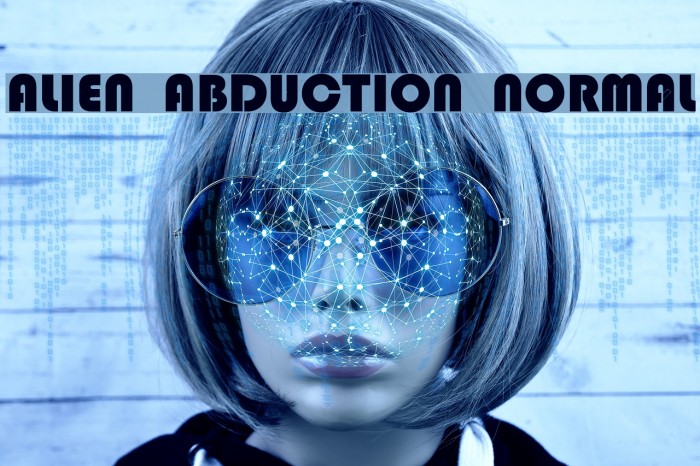
Alien Abduction Normal Font
This font features a bold and futuristic design with a distinct geometric style. The characters are constructed with thick, uniform strokes that create a strong visual impact. The letters have a rounded, almost circular appearance, with some characters featuring unique cutouts and angles that add a modern twist. The numbers and special characters maintain the same boldness and geometric consistency, making the font suitable for attention-grabbing designs. Its overall aesthetic is both playful and assertive, ideal for projects that require a standout typeface.
A bold, geometric font with a futuristic and playful design.
- Font: Alien Abduction Normal
by danny91194 - Weight: Normal
- Proposed Projects: Ideal for sci-fi themed posters, video game titles, branding for tech companies, and any project needing a bold, modern typeface.